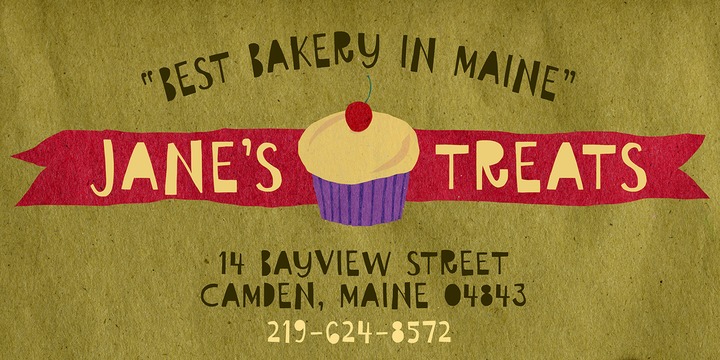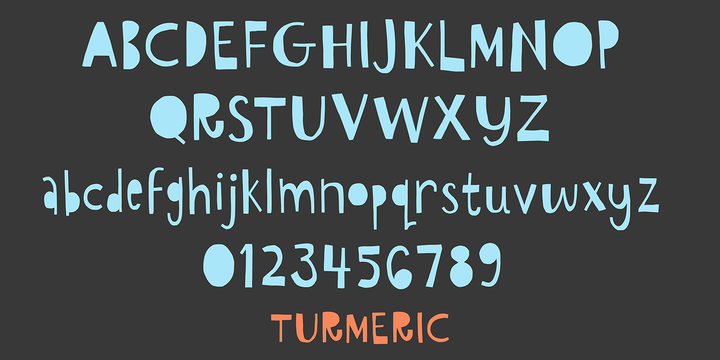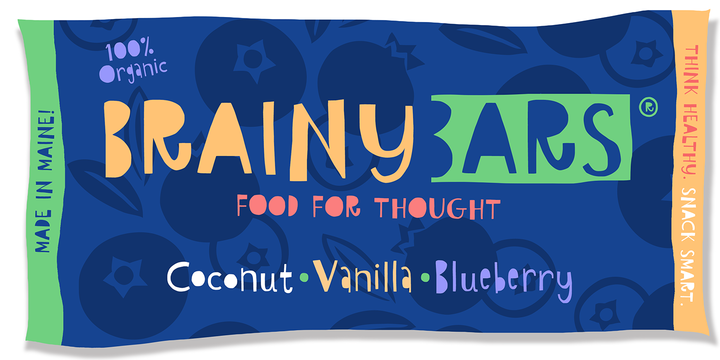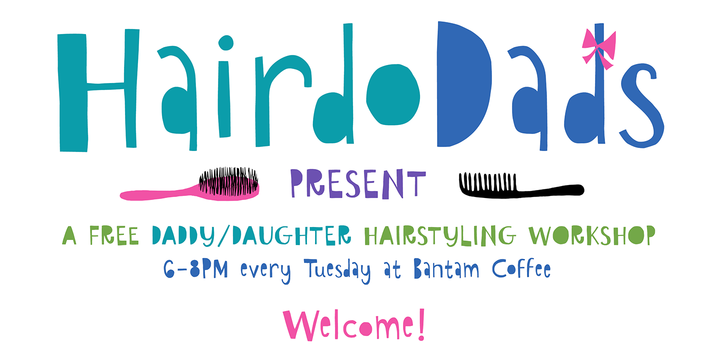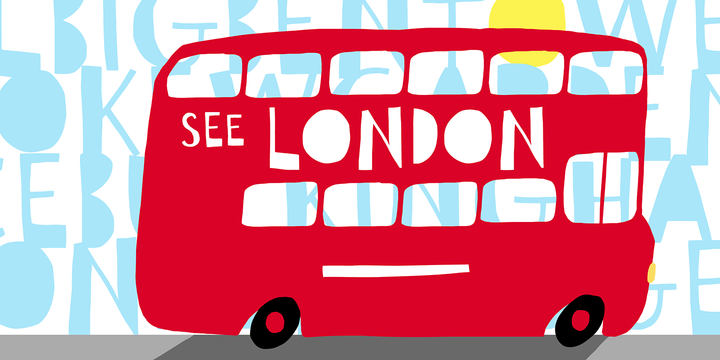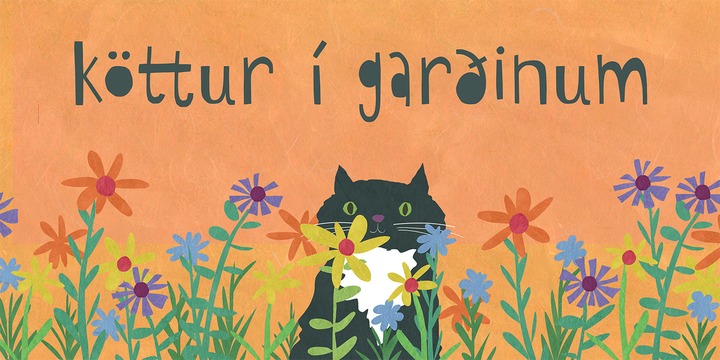
Turmeric Font
Turmeric’s spicy, hand-cut edge is zesty in all-caps, and flavorful in lowercase. It’s also rich with discretionary ligatures for a convincing handmade look. Are there health benefits? Maybe.